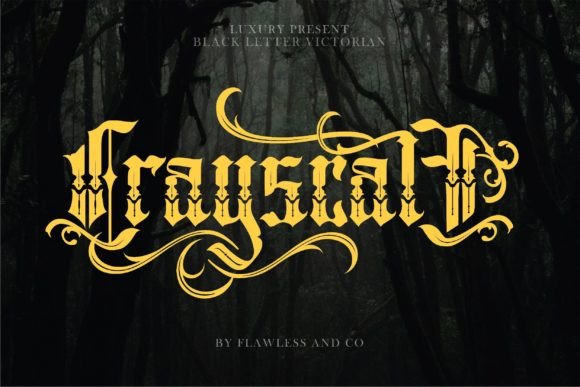
Step into the world of timeless elegance with "Crayscale", the blackletter Victorian font that transports you to an era of exquisite typography. Its intricate details and distinctive shapes reminiscent of Gothic architecture blend seamlessly with a modern touch, capturing the essence of tradition while embracing contemporary design.
Crafted with precision and an artistic flair, Crayscale is not just a font; it's a journey through time, a testament to the enduring beauty of blackletter typography. Each character is a work of art, adorned with delicate flourishes and sharp, angular lines that create a captivating visual symphony.
With Crayscale, your designs will transcend the ordinary and enter the realm of the extraordinary. Its timeless charm is perfect for crafting elegant logos, ethereal wedding invitations, captivating posters, and any design project seeking a touch of vintage sophistication.
Imagine the impact of your job cover letter adorned with Crayscale's stately presence. Its intricate details will command attention, exuding an air of professionalism and dedication. Let Crayscale be your silent advocate, communicating your passion and commitment through its elegant strokes.
Crayscale is not merely a font; it's an experience. It's an invitation to embrace the past while embracing the present. Its versatility knows no bounds, lending its charm to a vast array of design endeavors. Whether you're a seasoned designer or just starting your creative journey, Crayscale will elevate your work to new heights of sophistication.
Don't let your designs be ordinary. Embrace the allure of Crayscale and let your creativity flourish. Its timeless beauty will captivate your audience and leave a lasting impression. Experience the magic of Crayscale today and embark on a journey of design excellence.